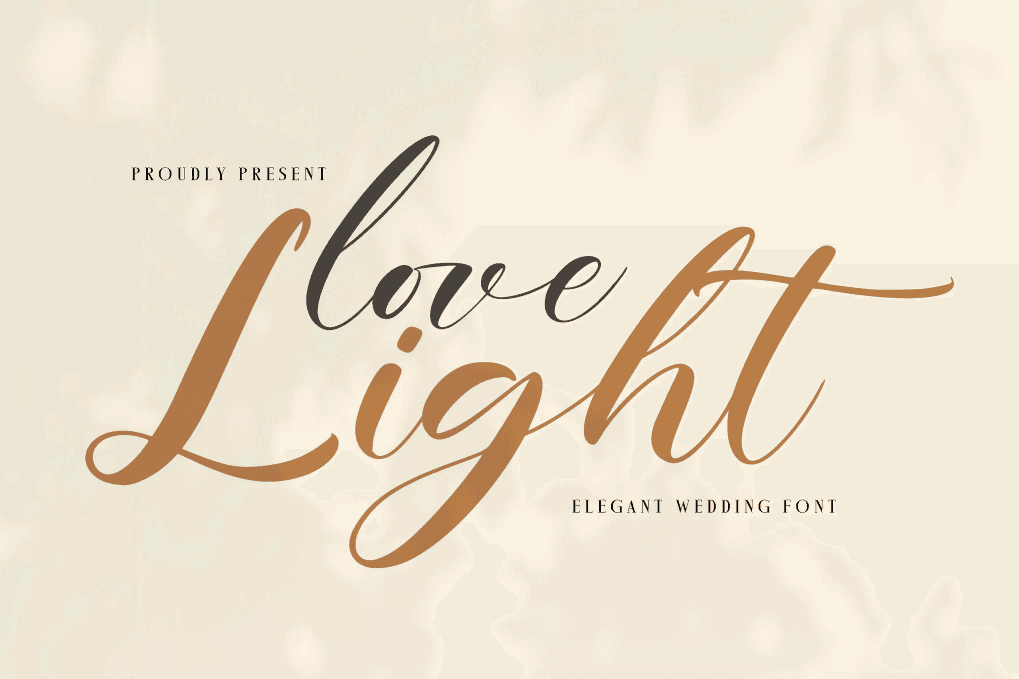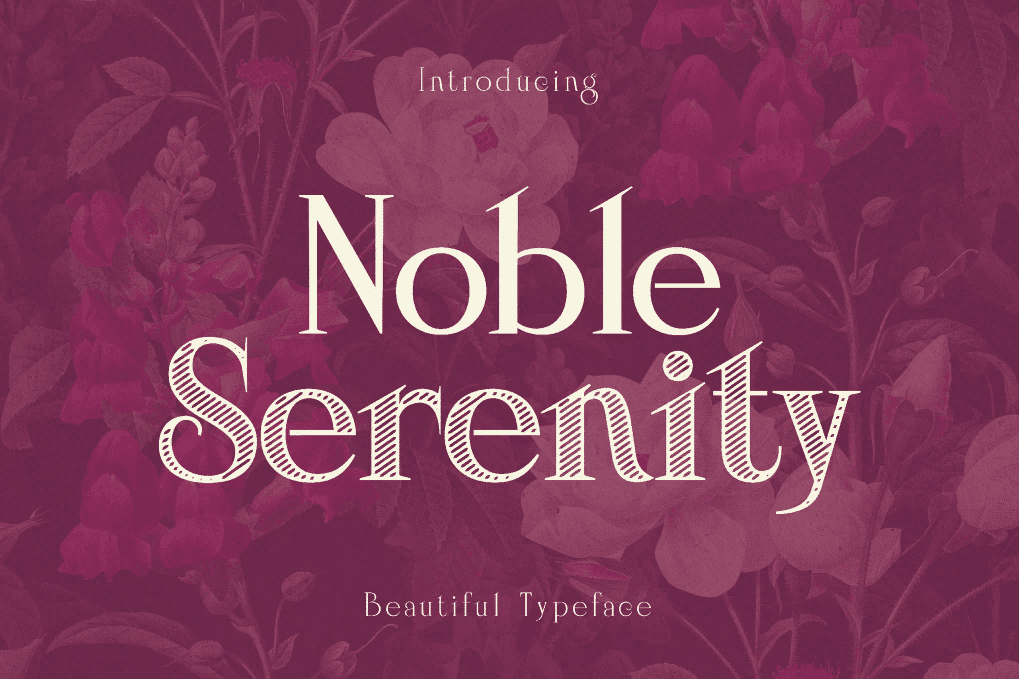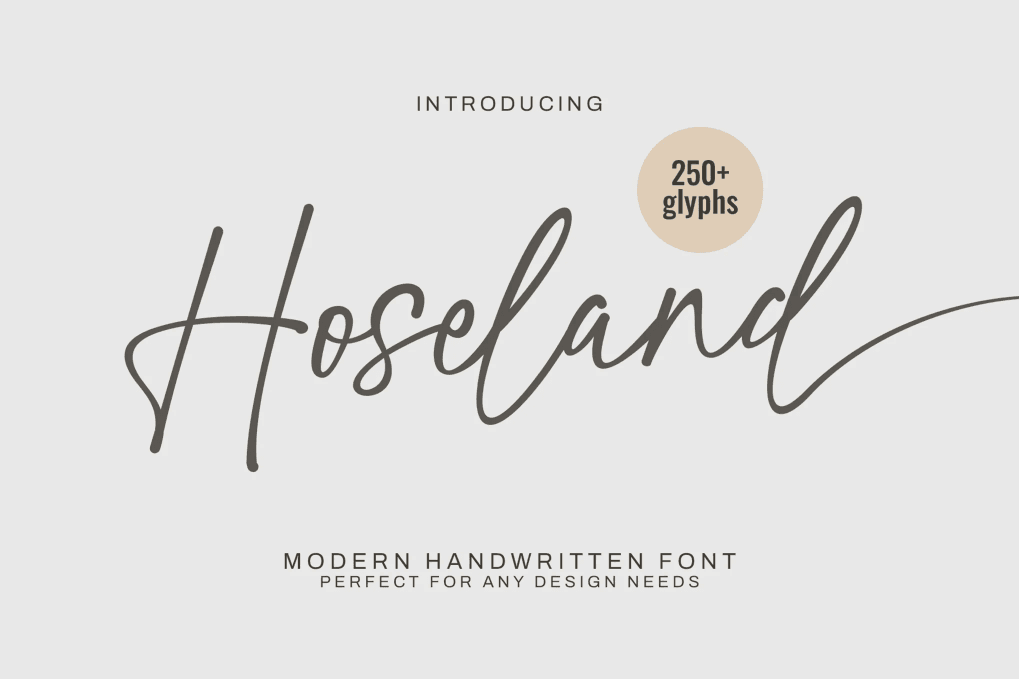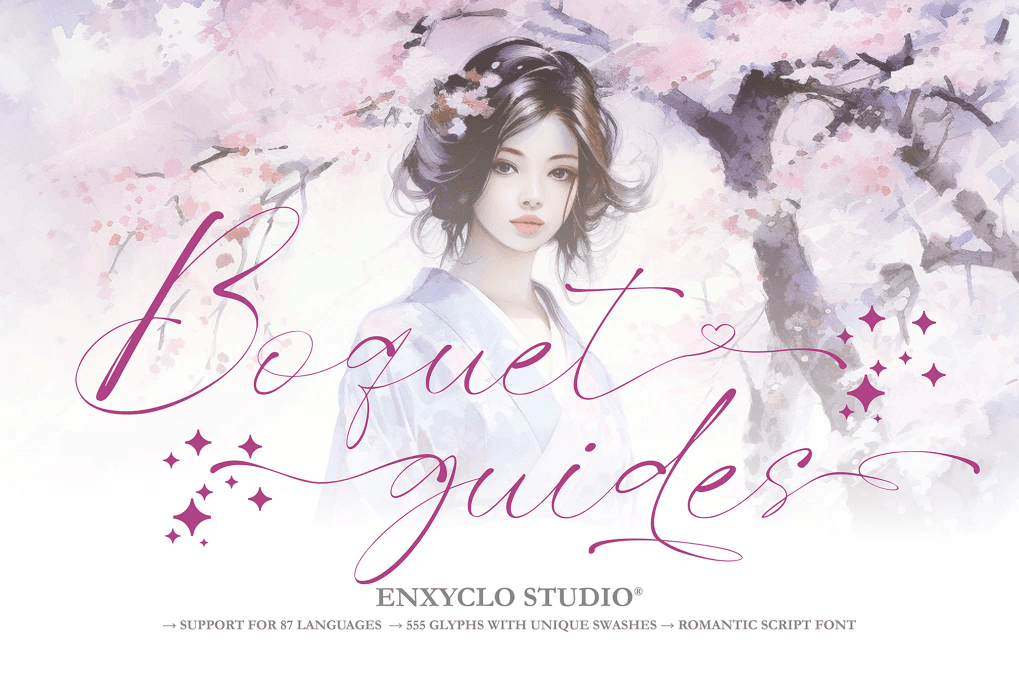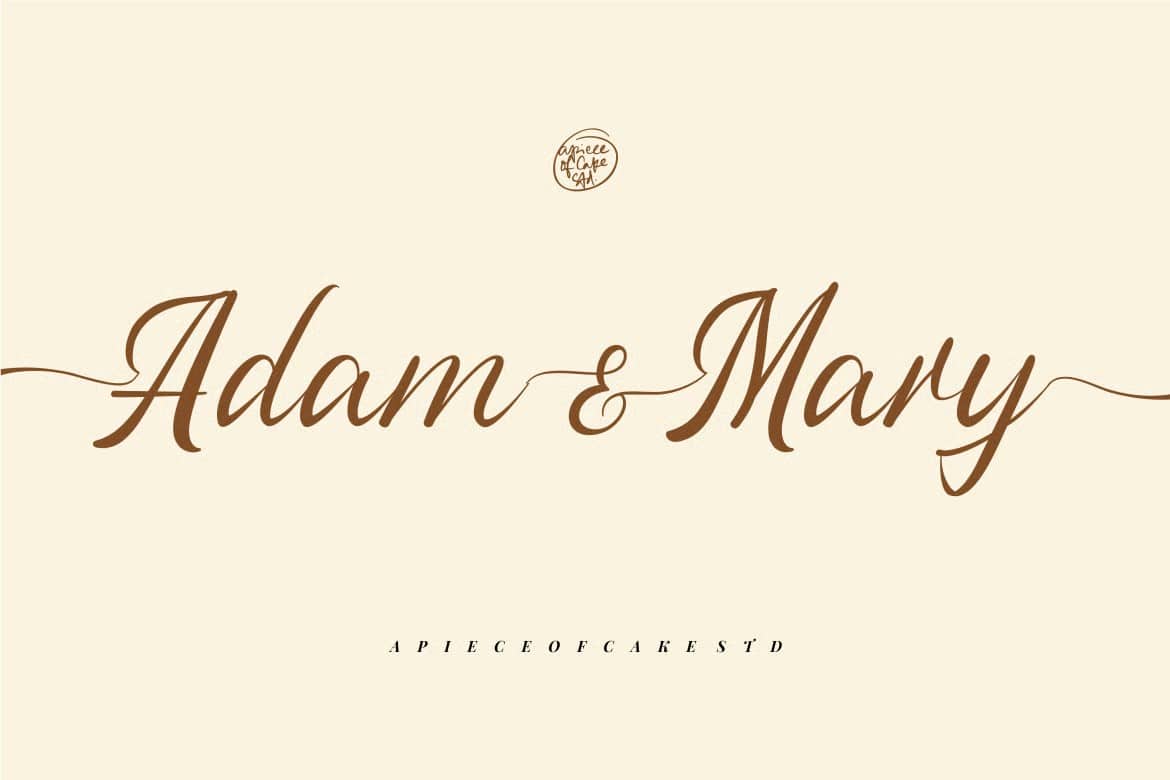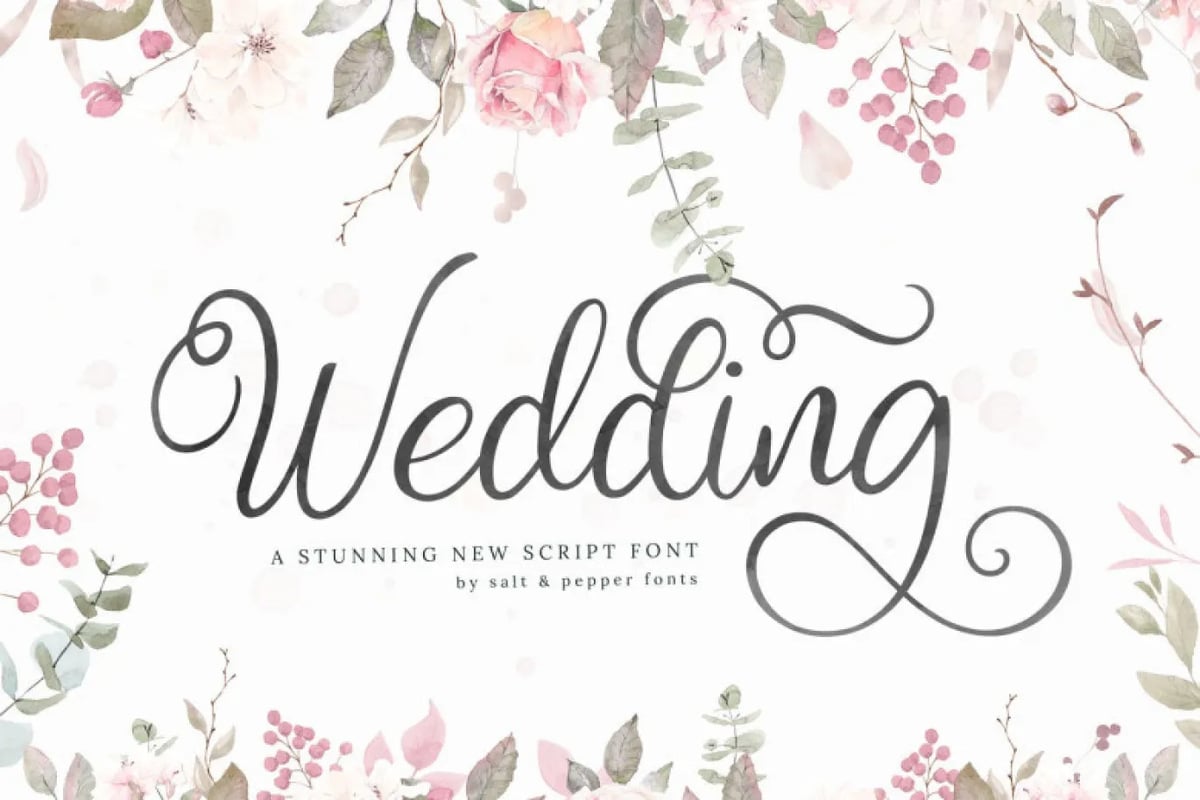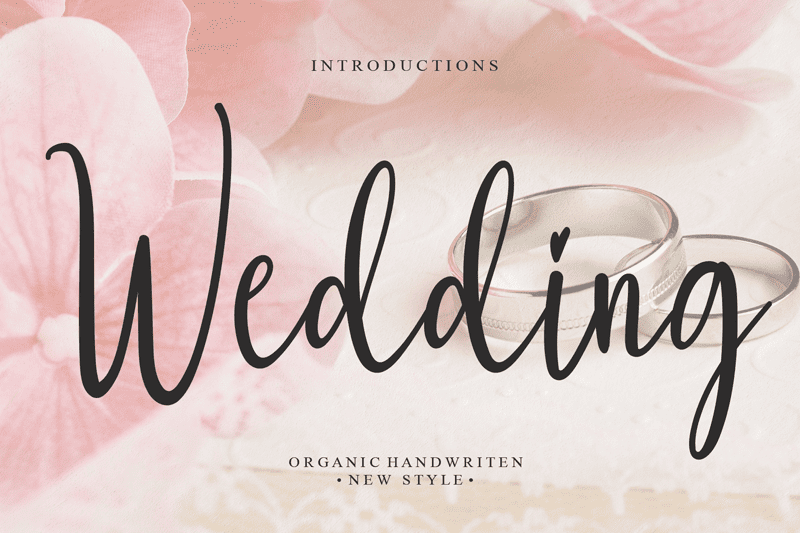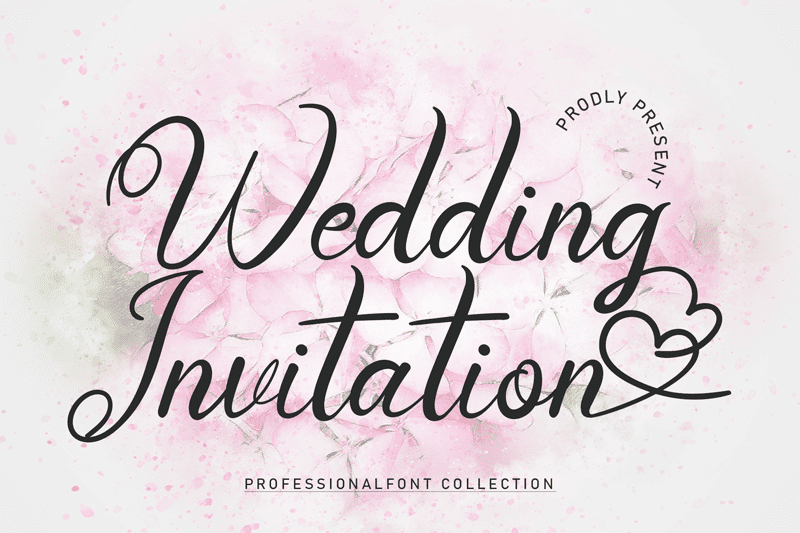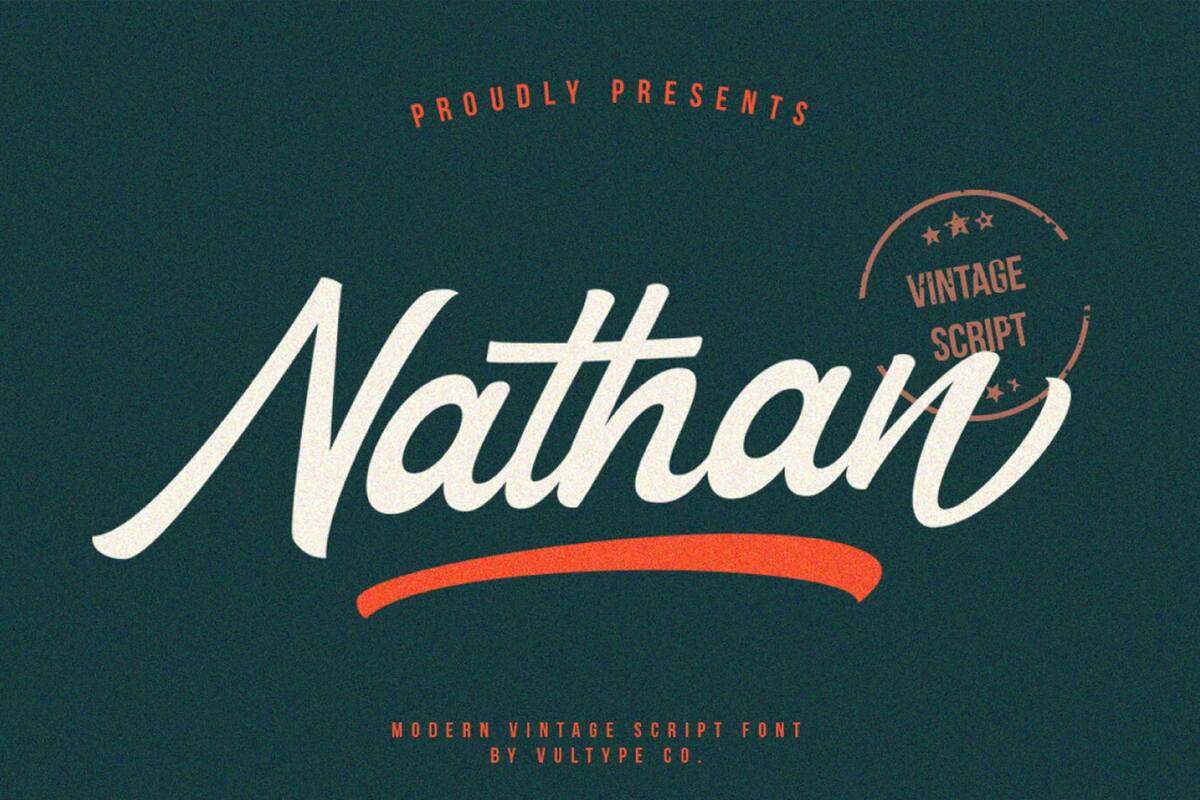
Sticker Mockups
Banksy
Bento Grid
Opera
Ring Award
Jim Lee
LinkedIn
iOS 26.1
Christmas Ads
Honor
Utah 2034
Celtic Fonts
Half Sister Wine
Film Metropolis
Fred Olsen Cruise Lines
Semiconductor
Alibaba
Cosmos
Kid Phone
iOS 27
Midday Studio
Apple Pen
Logo Generators
Design Agent
Dribbble
Creatives
Craig Miller
9to5Mac
Windows XP
Grin Beauty
Heathrow Airport
Kinder
Christmas Icons
RAW Crinkles
Gemini 3
Romania
Manero Brushes
Squad Studios
Semiconductor Manufacturing
Kokkili
Design
Minions
TopCashback
Ahmed Ghazi
Pangram Pangram
Front-Facing Camera
Lightning Fonts
Disegno
Paper Pro Move
Ragged Edge
Adobe Stock
Xiaomi 17
250th Anniversary
Fall Fonts
DAVID São Paulo
Holidays Are Coming
Mimi & Coco
Amazon Leo
Friends
James Cameron
Sugar Plum Sweetery
Financial Times
BYD
GT Canon
BIC Ballpoint
BBC Creative
Creative Cloud Pro
Peppa Pig
Watch
Pixel 10a
Pixel Hardware
Proposal Templates
Search Engine
Vinted
Neon Browser
Nintendo
Virgin Active
Footwear
BUCK
Philadelphia
Bvlgari
Riso Club
Honor 500 Series
Winter Olympic Games 2034
US Tech Force
Beyoncé
Hybrid AI
Data Centers
Astronomy
Amigo Jr.
Olga
Mighty Big Love
Summer Fonts
Yellow Websites
Gleb Kuznetsov
Picks
Henry Mills
macOS Tahoe 26
Massis
Seven Pets
Chips
Poyu Chen
Break Design
Wallace & Gromit
Mostafa Abdelmawla
Grinch
Graphic Design Trends 2026
Santa Tracker
ASUS
Keanis
Visual Identity
Google Maps
Line Mobility
Xiaomi Tag
Bold Fonts
Melbourne Symphony Orchestra
Robot Fonts
LMArena
Jessica Bong-Woon
Vanguard
Vietnam Independence
Pentawards
Autumn Fonts
Asahi
Clippy
Walmart
John Lewis
Studio Zak
Project Kuiper
Thanksgiving
iPhone SE
Elea
Euro Banknotes
Google Sans Flex
Grilli Type
Seletti
Build A Bear
TV
George
Figure Skating
Koit
Pixel Watch 4
Death of Clicks
Hily
Royal Courts of Justice
Signature Fonts
Cup Mockups
Art Styles
Close to You
Bloom
Yvdh Branding
Project Amplify
Phillyhead
Bionic Awards
Risotto Studio
Maybelline
Crisis
TikTok Awards
Sprezza Seltzer
Office 365
ChatGPT Translate
Threads
Mattel
Koto
Filippa Found
João Menezes
Happy2O
Vue Cinema
TechCrunch
Nude Images
Dashboard Designs
Vimeo
Pokemon
Saint-Urban
Microsoft 365
Stargate
Shyne
Skincare
Doris and Edvard Bair
Christmas Fonts
Barbour
Mona Lisa
San Pellegrino
Flightradar24
Nauralink
iPhone 17e
Menetization
De Icebreaker
Six Nations
Art&Graft
Uncharted Studio
BAFTA
Landor
World Illustration Awards
Bloomberg
Flashy Fonts
Rey Ban
Matt Smith
Tilt Beauty
Havas
Mico
Dr. Seuss Enterprises
Ticket Mockups
Group Chats
Nuria Studio
AI-Slop
SSL Sertificate
Open Source
Maison&Objet
Maia 2000
Grejsimojs
Roman Fonts
Pinterest
Easter Fonts
Dust-Proof
Jessica Walsh
Scrolling Dominate
Bird Logo
The Whit House
Dating App
Passive Income
Mug Mockups
My Health RCSI
Fragrance
Klyr
Sahar Sun
Philadelphia Eagles
Alex Pell
Dunkin
Mirumi
Red Dot Studio
Keith Lee
Windows
Samsai
Thomas the Tank Engine
Marblex
K M
FutureBrand
Tape Mockup
Epic by Vue
Top Designer
Tłocznia Cymes
Lightroom Presets
Jibbitz
Bending Spoons
Marlon Studio
Halloween Colors
Oracle
Gamze Binici
Aardman
Evan Blass
Škoda
Aldi
Cambie
Smirnoff
Brain Implants
FCC
John Ternus
Guinness
Mozilla
Alaska Airlines
Figma
Canalry
Pearson
AOI
Secret Codes
Thunder Fonts
T-Shirt Mockups
Sci-fi Fonts
Fia Townshend
Minimalist Web Design
Revvo Ellos Corte
Coasters Craft Beer
Magic Leap
Skin Cupid
Malike Favre
Winter Fonts
Melania Trump
Alpina
Creator Studio
Harry Potter
Téri
JLab
Nexora
Easter
Apps
Royal Mail
&Walsh
TD bank
McLaren
O0 Design
Nestle
Facebook
Anatomy
Good Work Coffee
Besta Brism
Barber Shop
Backbone Branding
Gretel
Green Bay Packers
Andy Gordon
DJI
Olaf
Yukai Engineering
Tumbler Mockups
Web Design Trends 2026
PostNord
Hollóka Grafikai Műhely
After Effects
Thomas and Friends
Red Bull
T-Shirt Mockup
Brand
Flower Bouquet
Uperfect
Editorial Fonts
Photography
Luca Ferrari
eBay
Wecare Premium
Rubik
Blurred Backgrounds
Eva Wallmark
Pet Designs
Ozan Karakoc
Aidol
Vision 0
Wrapping Paper
PG Branding
Bulletproof
Neuralink Implant
Multiplicity
Hannspree
Mobile Phones
Absolut Vodka
Moltbook
Galaxy S26 Ultra
Standards Manual
Magazine Templates
Resources
Clock Icons
Modern Fonts
Chiva Fit
Pearl Chuaynarong
Seb Edwards
Halloween Icons
Elpenor
Holy Studio
Amal2499
MINI
AI Glasses
YourStudio
George Wu
Boox Palma 2 Pro
White House
Sainsbury's
Sony Pictures
BLACKPINK Rosé
Stock Prices
Honda
APOORVA
Bluetooth
Blue XL
Ali Asaad Designs
Pomelli
Bentley
Small Text Fonts
Lemon Perfect
Formula 1
Allbirds
Dating
iPhone 11 Pro Max
Imaginaria Creative
Nightmare Apparel
Philadelphia Art Museum
Starbucks
Appartement 103
Osmo Action 6
The Salvation Army
Vertical Aerospace
Denmark
Badge Mockups
Acrobat
Ray Kurzweil
Adobe Animate
Ferrari Luce
Treverge
Tetris
Folding Monitor
Newspaper Fonts
Grey Goose
Philip Moyer
Floralp
Sesame Street
WOWCube
Billboard Mockups
NORD DDB
Åkestam Holst NoA
Grand Egyptian Museum
Micros Functional Mints
Santa Claus Websites
Ričardas Liaugminas
YouTube TV
Sanrio
Foilco
Rewe
Lufthansa
Tabasco
Kontrapunkt Type
Chatbots
Sonnet
Logo Mockup
Print Templates
Google AI
GPT-5
Time Icons
Innovative Fonts
Add Branding
Park Pictures
Julia Kemper
Notifications
Waymo
AR Glasses
Boots
Fantasia Collection
AI Toys
Owala
BrandMe
Zara
100 Most Beautiful Faces of 2025
Reign Typeface
Risottos
Raphael
West Village
Tecno
Google Labs
Logo Change
Stamp Collection
Thirst
Powers & Wilkins
Only
Tootsie Pop
Sneaker
Google TV
Sora
Playful Fonts
Automation
Luquire
CMF
Apple Logo
Oyster Gin
Robotaxi
Oreo
Valo
Anna’s Archive
Today Donuts
Ramensky
Wikimedia Foundation
PDF
Doomsday Clock
Volvo
Interior
Numinous Agency
GamePop
Omega
Summer Patterns
Brochure Templates
Google Drive
Australian Open
Kodak
Spin Master
Epoch
Atlas
Color Wheel
Russia
SheaMoisture
Zodiac Smiles for Kids
The Oscars
Skullpanda
Gundrop
Creative Review
VIVESS
Tech
Jafaar Jackson
C2 Modem
Opus
Dor Brothers
Semifreddi's
Drawing
Date Icons
Robotic Fonts
The Sound of Music
Xperia 10
Loud Mixers
MSN
M&A CREATIVE AGENCY
Black Roger
HTC
Vamp Aid
Gift Happily Ever After
Le Creuset
iPhone 18 Pro
Diet Coke
Fidji Simo
Backstreet Boys
TC Candler
Year
CES 2026
Aureva
Greenland
Holy Foods
Modonna della Rosa
PokéPark Kanto
Pova Curve 2
Toy Story 5
Fiasco
Just Hard Squeezed
Food Icons
pi8 Earbuds
Cambridge Audio
ITV
Wedding Fonts
The Housing Finance Corporation
Pixels Roundup
CMF Headphone Pro
Mate 70 Air
iPhone Pocket
Zoox
Brand Society
Color of the Year
Twitter
TikTok Shop
Marklinica
Ostecx
Hoodie Mockups
WIX
Humanity
AKQA
Gustaf Westman
Majkut Works
Baby Grok
Sleepover
Genie 3
Product Catalog
Le Colonnette
Charmera
Handover
Google PC
Cubios
Junhan
Nørlo Coffee
Faubourg 21
Touchscreen Laptops
Pizzeta
ABC TV
Haru
Mama Irene
HAJOK
Satelites
Dragonfly Wine
Satellite Internet
Tien
Nature Icons
INDD
Stout Design
Condensed Fonts
Watch Icons
WhatsApp
ASDA
Eva Morenets
Red Websites
RIBA
Decorative Font
Vive Eagle
Millet Matters
Cybercab
WML
Satellites
The Devil Wears Prada 2
Porsche
Fortnum & Mason
Music
Sofia Balli Montalvo
TiTok
Health
Leonardo da Vinci
Stempunk Art
Starship
LifeStyle
The Lidl Foodies
Bento Grids
Qwen-3 Max
Crocks
Active
250th Annniversary
Magazine
Creatibe
Emily Redfearn
Dashboard Examples
Advertise
KATSEYE
Art&Graf
Nature
Branding En
Vue Cinemas
Doris and Edvar Bair
Articles
Gobal Artist 2025
Uncharted
Popular
Grammarly
Boxing
Sci-fi
Trending
Superhuman
Premiere
Uperfecto
McDonal's
Åkestam Holst
Lumo Reader Tablet
Video
Paul King
Bluetooth Speaker
Pin Mockups
Fitness
Creative Branding
Fantasia
Rajesh Rajput
DDisney
Elen Musk
Robot Humanoid
Food
Online Shop
Time
MAGA Hats
Google Translator
Touchscreen Laptop
Gadgets
gentic Commerce
Photoshop Elements 2026
Jony Ive Studio
Games
Winnie-the-Pooh
Home/Fonts/50 Best wedding fonts with unique flair and charm
Fonts
50 Best wedding fonts with unique flair and charm
From timeless serifs to whimsical scripts, patterns that radiate classic elegance and dance across the page, your choices are endless.
Martynas
September 24, 2025 15 Min Read
385
love-light-wedding-font01
What could be sweeter to the heart than a wedding celebration? This is a special day and you must to prepare for it properly. You’ll need fonts that are suitable for writing invitations, promotions, create product packaging for the day that you cherish very much. This time I’ve prepared for you 50 real wedding fonts that have both charm and style. They make a huge value that your text look beautiful.
Envato Elements Marketplace
You may also like:
• 35 Best signature fonts to accentuate your style
• 30 Logo fonts to create an extraordinary brand
This list offering a variety of options to suit every couple’s taste. Whether you’re looking for something bold and contemporary or soft and romantic, you’ll find fonts that fit your vision.
All of them were created by professional designers and typographers, are of the best quality, whether it’s free or premium fonts. Take a look at our selection below and choose your favorite one to download. Keep a good mood and enjoy.
These fonts will suit many different projects: photography, watermarks, quotes, blog headers, posters, weddings, branding, logos, fashion, apparel, invitation letters, stationery, and many more others.
Importance of font choice in wedding invitations
Your wedding invitations are the first glimpse into the style and theme of your special day. They set the mood and anticipation for the event. The font you choose plays a major role in conveying the mood and beauty of your wedding. Whether you’re going for a playful, classic, or modern theme, the right typography can make a big impact.
Without further ado, let’s jump to the list of the best wedding fonts:
1. Beautifully – Wedding Font
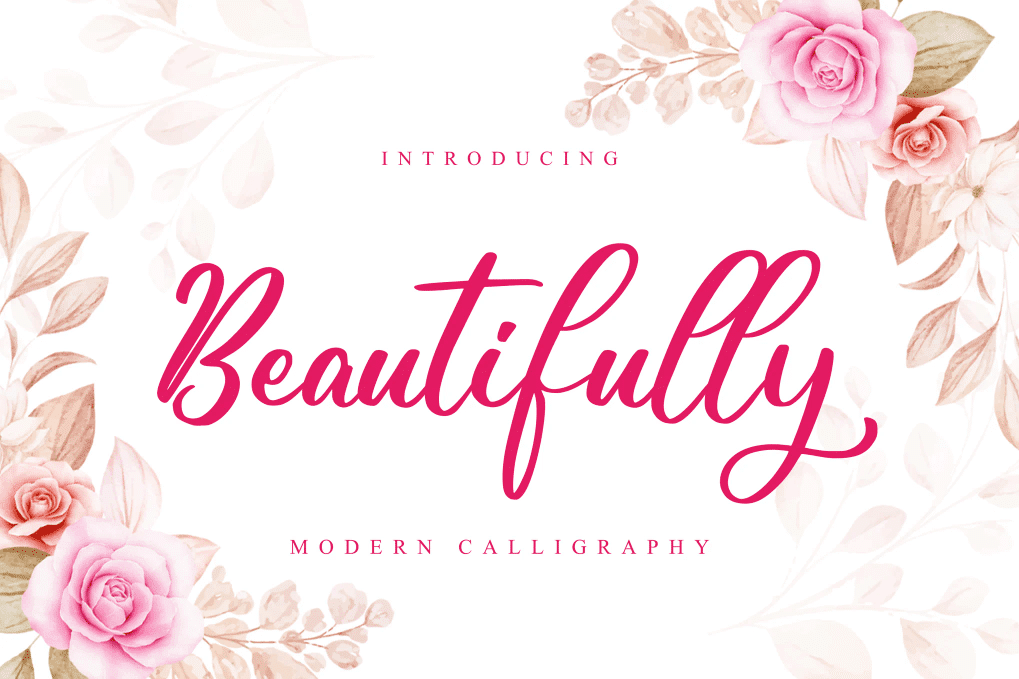
A modern calligraphy
An incredibly beautiful script font. It has a classy, elegant and modern look that can be used for logos, branding, invitations, stationery, and wedding designs. Comes in uppercase and lowercase letters, numbers, punctuation, swash, ligatures and alternates + multilingual support.
Download Font
2. Love Light Wedding Font
An elegant wedding font
It is an organic handwritten font suitable for branding, signatures, wedding invitations, promotion, product packaging, and other needs. This font is modern, simple, but still authentic. Comes in uppercase and lowercase characters, numbers, and punctuation.
Download Font
3. Noble Serenity – Wedding Font
A beautiful wedding typeface
This exquisite serif font is a harmonious blend of sophistication and tranquility, designed to elevate your designs with a touch of refined grace. Suits well for wedding invitations, luxury branding, or editorial layouts. Comes in uppercase and lowercase characters, numbers, punctuation, and multilingual support.
Download Font
4. Hoseland – Handwritten Font
A modern handwritten font
A beautifully crafted handwritten font with a modern and stylish touch. Designed with smooth curves and elegant strokes. Over 250+ glyphs, uppercase and lowercase characters, numerals, punctuation and multilingual support.
Download Font
5. NCL Boquet Guides – Wedding Font
A romantic script font
A romantic love heart swash script font. It is unique handwritten script font with heart or love swashes. It contains 555 glyphs, OpenType feature, uppercase, lowercase characters, numeral, punctuation, symbol, and multilingual support.
Download Font
6. Adam and Mary a Wedding Font
A script wedding font
A beauty script font suitable for your design project needs, such as; wedding themes, social media posts, quotes, overlays on images, and more others. Comes in uppercase and lowercase glyphs, number, symbol, punctuation, swashes, alternates, and multilingual support.
Download Font
7. Free Wedding Font
• Free for personal use only.
A stunning script font
An elegant and romantic calligraphy typeface with characters that move along its base, perfect for adding some luxury energy to any design project. PUA encoded, it allows access to all its amazing glyphs and ligatures quickly.
Download Font
8. Free Wedding Font
• Free for personal use only.
A free organic handwritten wedding font
An elegant organic handwritten script font for your wedding invitations. Comes in uppercase and lowercase characters, numbers and punctuation.
Download Font
9. Free Hello Agatha Font
• Free for personal use only.
A free handwritten script and serif
A delightful font pair, which consists of a beautiful script and a playful caps serif font. Together or separate they are perfect for t-shirt designs, quotes, mugs, bag canvas, greeting cards, wedding designs, and more.
Download Font
10. Free Fathia Script Font
• Free for personal and commercial use.
A free monoline script font
This modern and elegant monoline script font perfect for any design project. Comes in uppercase and lowercase characters.
Download Font
11. Free Wedding Invitation Font
• Free for personal use only.
A free script font for wedding invitations
A free handwritten script font for wedding invitations. Comes in uppercase and lowercase characters, numbers, and punctuation.
Download Font
12. Free Nathan Vintage Script Font
• Free for personal use only.
A free vintage script font
A vintage script font, inspired by modern vintage and retro style. All characters have an imperfect shape that giving it a natural hand drawn look. Perfect for creating traditional style logos, labels, package designs, lettering for t-shirts, wedding invitations, and much more.
Download Font
13. Honeymoon – Wedding Font
A handwritten font with alternate
A graceful script handwritten font that captures the essence of romance and celebration. Comes in uppercase and lowercase characters, numbers, punctuation, alternates, ligatures, PUA encoded and multilingual support.
Download Font
14. Married Typeface
A married typeface
A modern handwritten font with a wavy calligraphy style, carefully crafted to make your text look beautiful. Includes full set of uppercase and lowercase letters, numerals, a large range of punctuation and ligatures, giving realistic handwritten style.
Download Font
15. Maria & Brown – A Script Font
A modern handwritten script font
A stylish script font suitable for your design project needs, such as; wedding themes, valentine’s themes, quotes, overlays on images, and more. Includes a set of uppercase and lowercase glyphs, number, symbol, and punctuation.
Download Font
16. Corria and Bobby – A Wedding Font
A lovely wedding script font
A stylish script font suitable for your design project needs, such as; wedding themes, valentine’s themes, quotes, overlays on images, and more. Includes a set of uppercase and lowercase glyphs, number, symbol, punctuation. and multilingual support.
Download Font
17. Beauty Handwriting – Wedding Font
A handwriting font
A natural handwriting modern calligraphy font. Comes in full set of lowercase and uppercase letters, numerals and punctuation, multilingual symbols, lowercase beginning and ending swashes.
Download Font
18. Delighted Sunrise Wedding Font
A classic elegant script font
A vintage / classic elegant wedding copperplate calligraphy script font. Perfect for royal branding, wedding designs, blogging, social media, restaurant branding, invitation cards, and more. Comes in uppercase and lowercase characters, numerals, punctuation, ligatures, alternates, and multilingual support.
Download Font
19. Sweetland Script Font
A luxury handwritten font
A luxury handwritten font, natural, with beauty dynamic curve in every single character. This font is great for logos, invitations and blogs. Support OpenType features : stylistic alternates and ligatures + multilingual support.
Download Font
20. Royal Wedding Logo Font
A signature font for logos and wedding
A natural handwriting modern script calligraphy font. Comes in full set of lowercase and uppercase letters, numerals and punctuation + multilingual symbols.
Download Font
21. Ringtone – A Script Font
A beauty handwritten script font
A stylish script font suitable for your design project needs, such as; wedding themes, social media posts, quotes, overlays on images, and more. Comes in uppercase and lowercase glyphs, number, symbol, and punctuation, some alternates and ligatures + multilingual support.
Download Font
22. Maglia – Wedding Calligraphy Font
A wedding calligraphy font
A beautifully crafted calligraphy font designed to bring a sense of romance, charm, and timeless sophistication. Perfect for logos, greeting cards, fashion branding, and luxury packaging. Comes in uppercase glyphs, number, symbol, and punctuation, alternates character.
Download Font
23. Matcha – A Script Font
A nice script font
A beauty script font suitable for your design project needs, such as; wedding themes, quotes, overlays on images, and more. Includes a set of uppercase and lowercase glyphs, number, symbol, punctuation. and multilingual support.
Download Font
24. Free Noelan Calligraphy Typeface
• Free for personal and commercial use.
A free modern calligraphy typeface
A free modern calligraphy typeface. Includes many alternates for easy mixing & matching and also has international characters. Best for invitations, wedding designs, greeting cards, and more.
Download Font
25. Free Better Grade Signature Font
• Free for personal use only.
A free modern signature font
A flowing handwritten signature font with elegant touch. Perfect for your favorite projects. Fall in love with it’s incredibly distinct and timeless style. Use it to create spectacular designs such as signatures, watermarks, wedding designs, invitations, and more.
Download Font
26. Free Galistan Handwritten Font
• Free for personal use only.
A free modern calligraphy font
A free bold and classic handwritten calligraphy font. It fits into a wide set of designs, besides that, this font is perfect for those of you who like sticker, vinyl designs, wedding invitations, greeting cards, and more.
Download Font
27. Free Wotham Signature Font
• Free for personal and commercial use.
A free signature font
A free bold m=and modern signature font so good going for your designs such as watermarks, wedding invitations, greeting cards, logo, and more.
Download Font
28. Free Amelyan Calligraphy Font
• Free for personal and commercial use.
A free calligraphy font
A free handwritten bold calligraphy font ideal going for your invitations, logos, greeting cards, lettering, and much more.
Download Font
29. Free Famulred Signature Font
• Free for personal and commercial use.
A free signature font
A free signature and monoline style font for your design needs. Perfect for watermarks, signup pages, invitations, wedding designs, poster, and many more.
Download Font
30. Free Miama Font
• Free for personal and commercial use.
A free handwritten font
An elegant free handwritten font especially best for wedding invitations. Comes in uppercase and lowercase characters, numerals and punctuations.
Download Font
31. Lovelista Script Font
A beauty handwritten script font
A beauty script font suitable for your design project needs, such as; wedding themes, social media posts, quotes, overlays on images, and more. Included a set of uppercase and lowercase glyphs, number, symbol, and punctuation, ligatures + multilingual support.
Download Font
32. Remidi Cinta Script Font
A modern bold script font
A modern bold script font suits well for logos, invitations, greeting cards, postcards, valentine’s day, and more. Comes uppercase and lowercase characters, numbers and punctuations.
Download Font
33. Mintevida – Wedding Script Font
A modern calligraphy script font
A lovely and delicate script font that exudes elegance and class. Ideal for invitations, menu cards, signatures, watermarks, greeting cards, and more. Comes in standard character, numeral, punctuation, ligatures and alternates + multilingual support.
Download Font
34. Love Struck – A Handwritten Serif
An authentic handcrafted serif font
An authentic typeface that gracefully marries a delicate and refined aesthetic with a hint of rustic charm. Best for invitations, labels, logos, magazines, books, greeting / wedding cards. Comes in uppercase and lowercase characters, numbers, punctuation, PUA encoded and multilingual support.
Download Font
35. Billie Glory – A Script Font
A handwritten font
A stylish script font suitable for your design project needs, such as; wedding themes, quotes, overlays on images, and more. Includes a set of uppercase and lowercase glyphs, number, symbol, punctuation. and multilingual support.
Download Font
36. Laurentine – Elegant Wedding Font
A modern calligraphy font
An exquisite handwritten font, masterfully designed to become a true favorite. Ideal for wedding designs, invitations, greeting cards, menu cards, postcards, and more others. Comes in standard characters, numbers, punctuations, PUA encoded and multilingual support.
Download Font
37. Duarose – An Elegant Serif
An elegant serif font
A classic and elegant serif font with a bunch of alternates up to 6 styles for each character that will make your invitations or logos even more stunning. It support multi-language and already PUA encoded.
Download Font
38. Rustic Wedding Script Font
An organic wedding font
A lovely modern script font with handmade looks that contain lowercase, uppercase characters, symbol, and also support multi-language. Including ligatures, swash, and many alternates.
Download Font
39. Veronica and Harold Wedding Font
A beautiful serif wedding font
A beautiful serif wedding font so good going for your invitations, greeting cards, menu designs, postcards, and many more others. Comes in all-caps, numerals and punctuation.
Download Font
40. Dellanor – A Wedding Font
A romantic wedding font
A romantic wedding font with luxury, stylish, and elegant characteristics. Its ornate and decorative style makes it a great choice for wedding invitation designs, event signs, and other projects. Included a set of uppercase and lowercase glyphs, number, symbol, and punctuation, alternates and ligatures + multilingual support.
Download Font
41. NCL Bique Kisty – Wedding Font
A playful romantic script font
An romantic love heart swash script font. It is a unique handwritten script font with heart or love swashes. Contains 414 glyphs, uppercase and lowercase characters, numbers, punctuations, symbols, PUA encoded + multilingual support.
Download Font
42. Bella Elegante Calligraphy Font
A calligraphy font
A chic calligraphy font, described by an love touch, perfect for wedding party, invitations, signature brand, and in other projects. Comes in uppercase and lowercase characters, numbers, punctuation, ligatures and alternates + multilingual support.
Download Font
43. Molgak Classy – Wedding Font
A modern sans serif font
This awesome font offers beautiful typographic harmony for a diversity of design projects, including logos and branding, social media posts, wedding invitations or advertisements. Comes in uppercase and lowercase characters, numbers, punctuation and multilingual support.
Download Font
44. Calligraphy Marriage Script
A brush script font
A brush script created using a calligraphy brush pen, made as natural as possible so that it displays an attractive handwritten impression. Comes in uppercase and lowercase characters, numbers, punctuation and multilingual support.
Download Font
45. Aetrina Elegant Display Font
An elegant script font
An elegant script that is suitable for branding, weddings, social media, product design, stationery, advertising other romantic projects. Comes in standard letters, numbers, symbols, ligature and alternate, kerning and multilingual support.
Download Font
46. Senja Mentari wedding Font
A new calligraphy script wedding font
An elegant modern calligraphy font inspired by delicate inky hand lettering. Comes in uppercase and lowercase letters, more than 100 beautiful swashes, number, punctuation, alternates and ligatures + multilingual support.
Download Font
47. Rustic Wedding Font
A modern calligraphy script font
A modern script typeface, using style hand made with brushing. It beautiful for wedding card designs, logotypes, website headers, fashion designs and any more. Comes in uppercase and lowercase letters, numerals, punctuation and multilingual support.
Download Font
48. Break Dance Font
A handwritten script font
A fresh handwritten font. Perfect for branding, logos, greeting cards, wedding stationery, quotes, and more. A handy set of OpenType stylistic alternates, ligatures and multiple language support.
Download Font
49. Venettica Signature Scrip
A romantic script font
This typeface has elegant look with natural feel. The swashes make the font looks even more unique. Comes in uppercase, lowercase, punctuation, symbols, numerals, stylistic set alternate, ligatures, ad more. Also support multilingual.
Download Font
50. Blooming Beauties Font
An elegant monoline script font
An elegant monoline script font, perfect for crafting, branding, invitation, stationery, wedding designs, social media posts, advertisements, and more. Comes in uppercase and lowercase characters, numeric, punctuation, ligatures + multilingual support.
FAQ’s:
What makes wedding fonts so attractive?
Wedding fonts are more than just pretty letters on a screen. They are digital representations of an ancient art form that has perfected the written word for centuries. But what exactly gives these fonts their irresistible charm?
• First of all, wedding fonts bring a human touch to typography. In our increasingly digital world, these fonts remind us of the human hand behind the letters.
• These embellishments are not just for decoration. They help create rhythm, balance, and visual interest that elegantly and purposefully guides the reader’s gaze through the text.
• Wedding fonts carry the weight of history. They connect us to medieval manuscripts, Renaissance poetry, and the golden age of handwriting.
Where to use wedding fonts?
Understanding when and where to use wedding fonts is crucial to creating an effective design. Their elegant nature makes them perfect for some purposes, but can be problematic for others. Use them:
• In wedding and event designs;
• In luxury branding and logos;
• In certificates and awards;
• In book covers and literary projects;
• In restaurant menus and food packaging.
Where to avoid wedding fonts?
With fonts you can create and break the design, so it is crucial to know where to avoid using wedding fonts:
• In digital interfaces and apps;
• In technical documentations;
• In long body texts;
• In modern tech and startup branding.
Conclusion
No matter what you use these wedding fonts for, you can reach a higher level with them, but the main thing is not to overdo it and not go overboard. This is a sensitive font that needs space, you need to know them well. You can pair it with other Serif or Sans serif fonts, it can be even more useful.
I hope that my selection of 50 wedding fonts will become your constant assistants. I wish you all success and see you again on my website soon.
Tags:
FontsInvitation FontsScript FontsWedding Fonts
Share Our Post
A dog watching tv
Previous Post
Google ‘Gemini’ everywhere, even on your TV
Apple Liquid Glass
Next Post
Are you really want ‘iOS 26’. Once you choose, you can’t go back.
Popular Categories
Art Art
21 Posts
Creative Creative
112 Posts
Tech Tech
116 Posts
Blogging Blogging
21 Posts
AI AI
100 Posts
Most Viewed
Lightning fonts cover
13 Lightning fonts that will electrify your designs